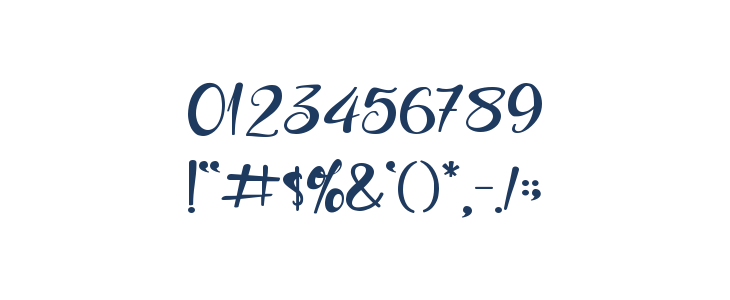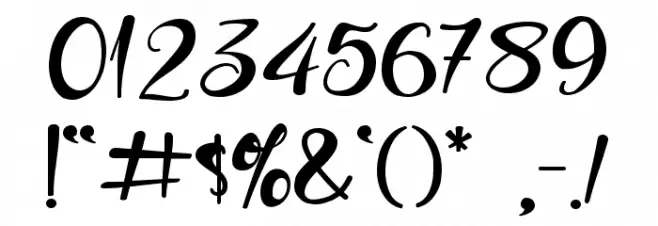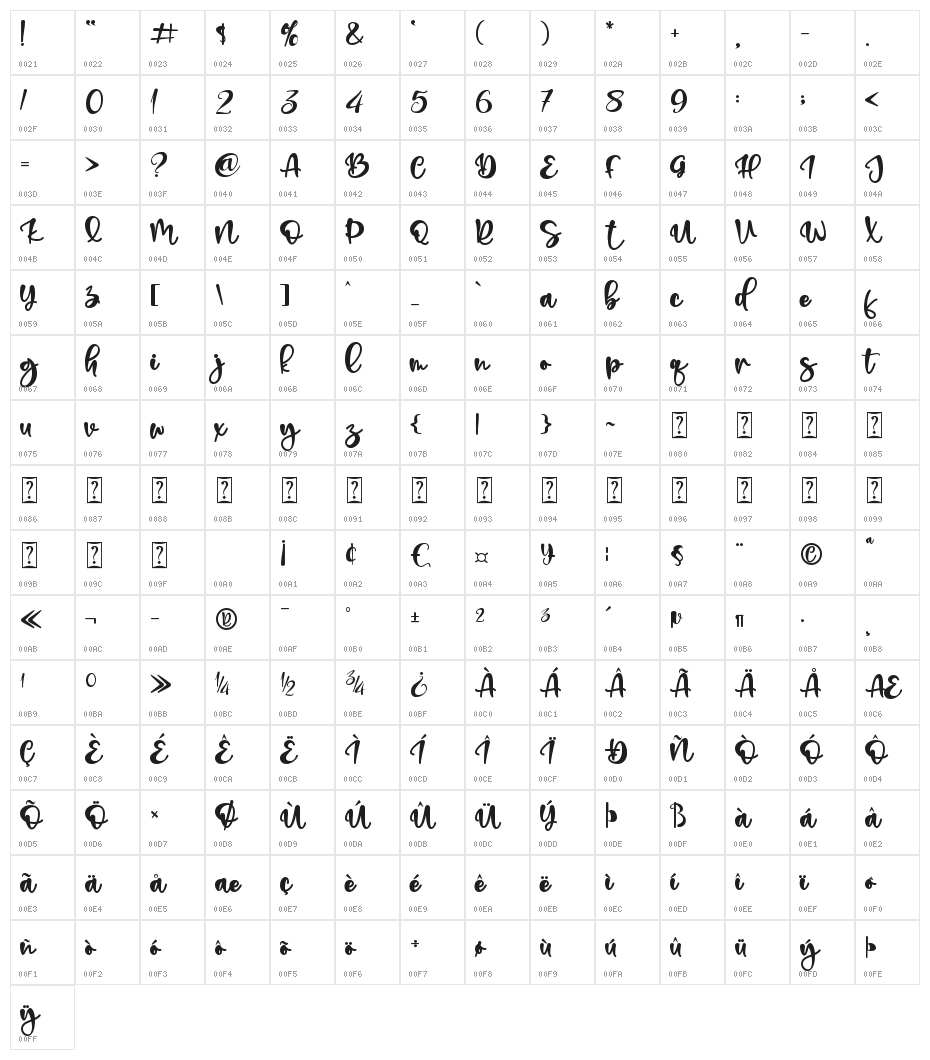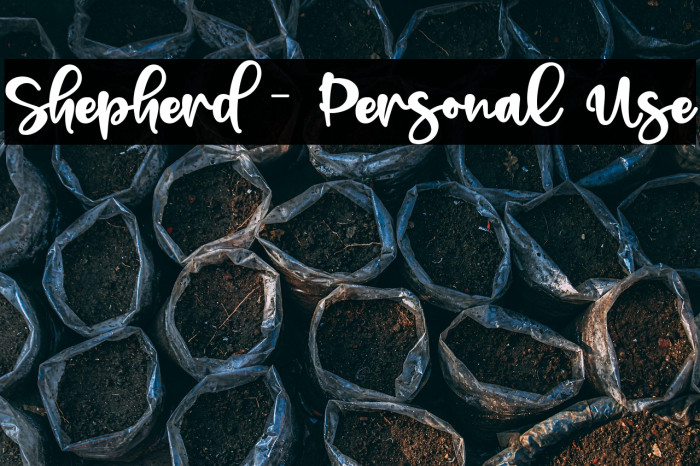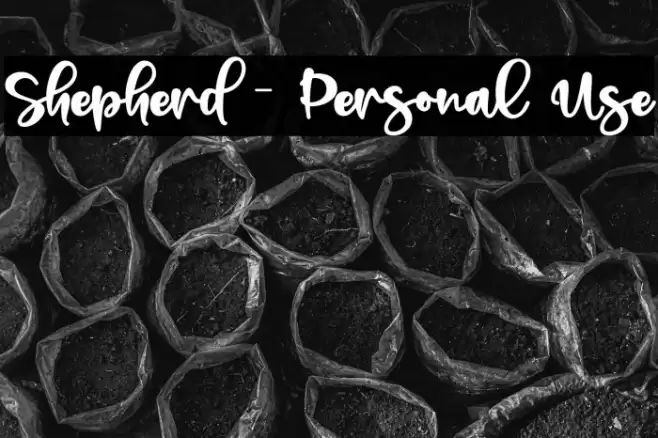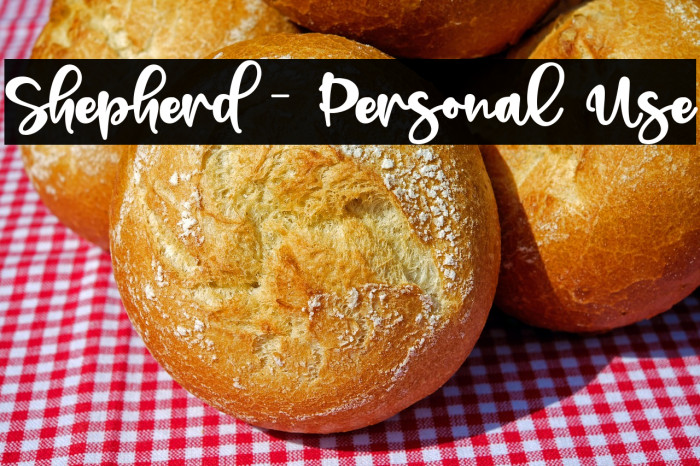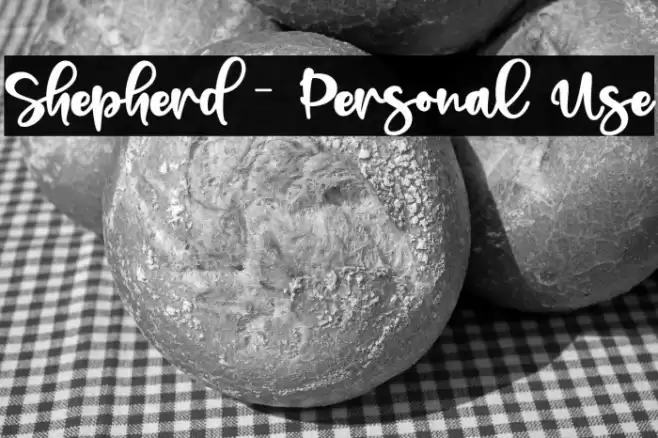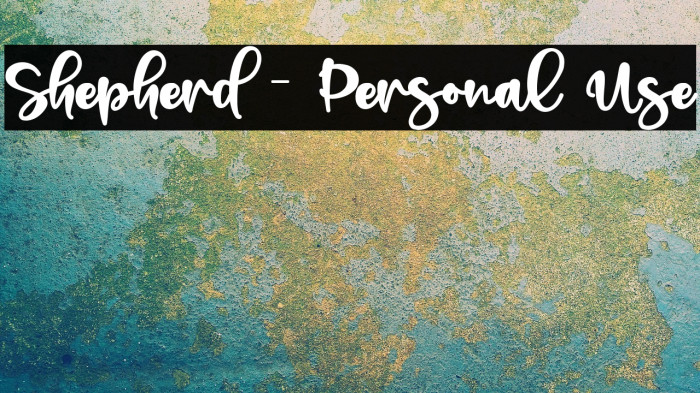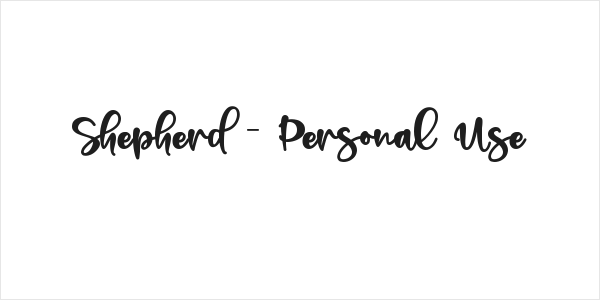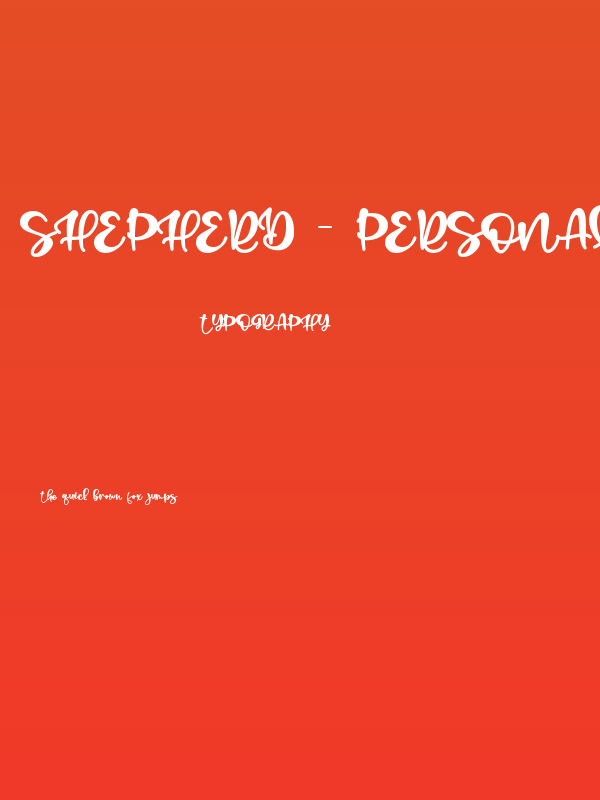
Shepherd - Personal Use Font
Shepherd - Personal Use Description
This font features a lively and expressive script style, characterized by its bold, flowing strokes and a playful, handwritten appearance. The uppercase letters are elegantly crafted with sweeping curves and loops, while the lowercase letters maintain a consistent rhythm and fluidity. The numbers and special characters are designed to complement the overall aesthetic, adding a touch of whimsy and charm. The font's boldness and dynamic nature make it stand out, yet it retains a sense of elegance and sophistication. Its unique style is perfect for adding a personal touch to any design project.
| Proposed Projects | Ideal for invitations, greeting cards, logos, branding, and social media graphics. |